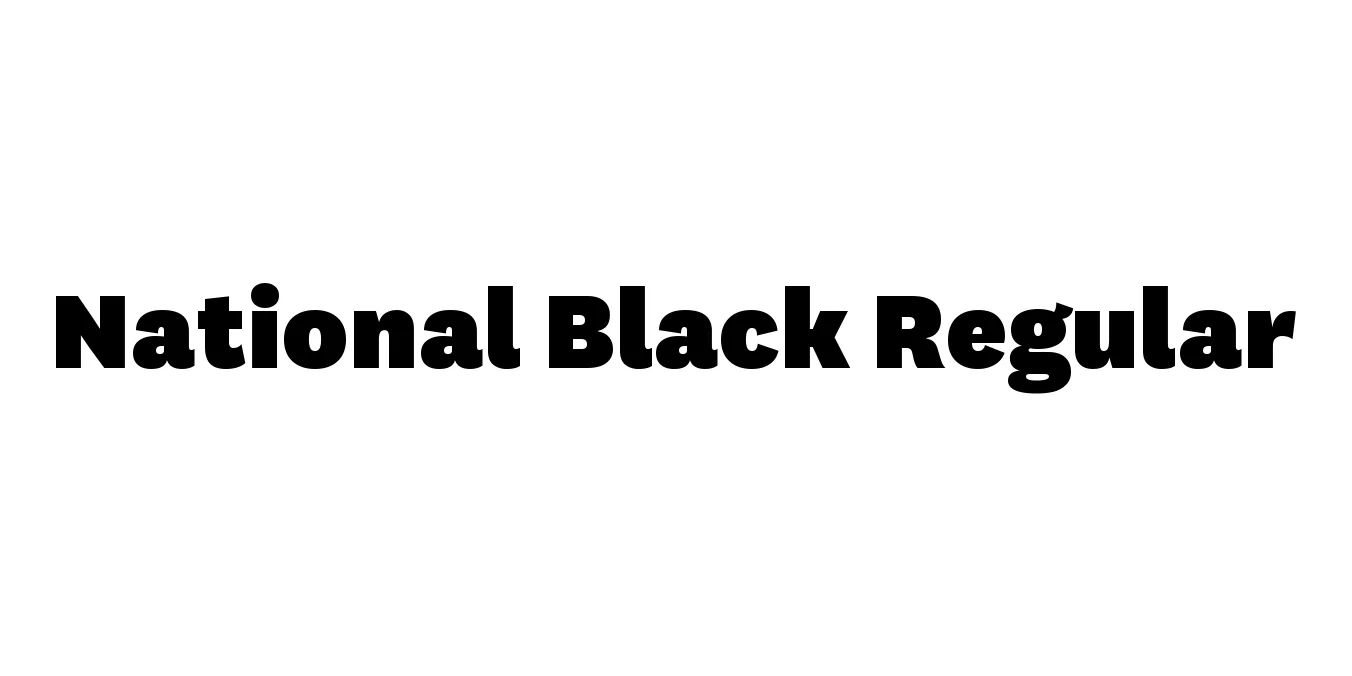
National Black Regular
Designed by Kris Sowersby
| Font Name | National Black |
| Designer | Kris Sowersby |
| Similar Fonts | Akzidenz-Grotesk, Helvetica, Franklin Gothic, Univers |
National Black Regular is a prominent member of the National family, a comprehensive sans-serif typeface designed by Kris Sowersby and released through the Klim Type Foundry in 2007. Drawing inspiration from the "grotesque" models of the late 19th century, National was created to provide a versatile and humble alternative to the clinical perfection of mid-century Swiss modernism. It balances classic proportions with subtle contemporary details, resulting in a face that feels both timeless and fresh.
The Black Regular weight specifically focuses on maximum impact and visual authority. While it retains the characteristic curves and distinctive terminals found in the lighter weights, its heavy stroke weight makes it an exceptional choice for display purposes. It is widely recognized for its clean aesthetic and functional clarity, making it a favorite among professional graphic designers for high-end branding and editorial projects.
National Black Regular Best Uses
Ideal for bold, high-impact titles in print magazines and digital layouts.
Strong character forms make it perfect for creating distinctive corporate identities.
Highly legible in large formats, making it effective for posters and billboards.
The heavy weight provides excellent visual hierarchy for event promotion.